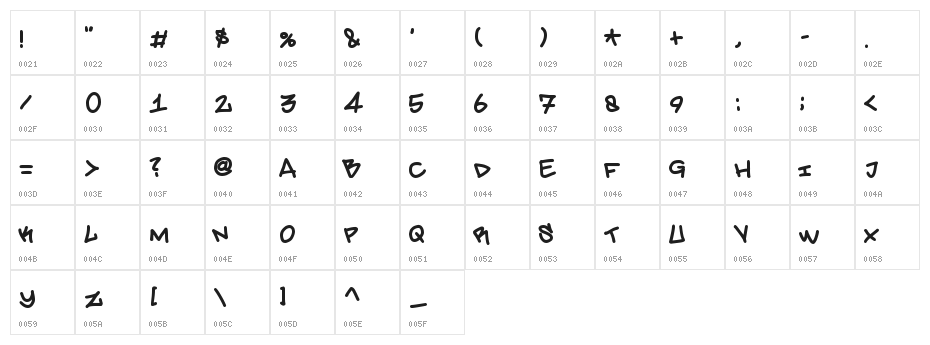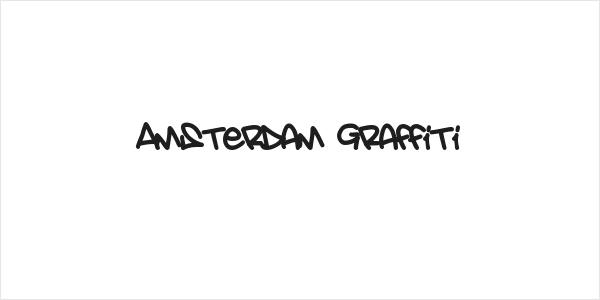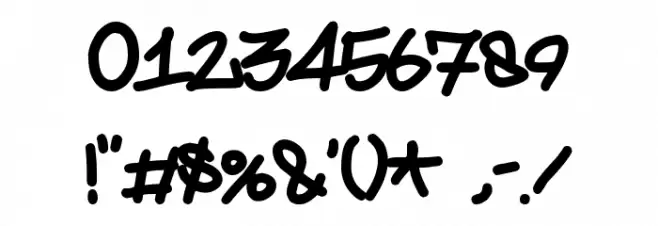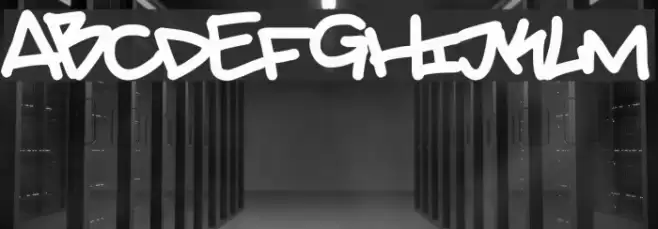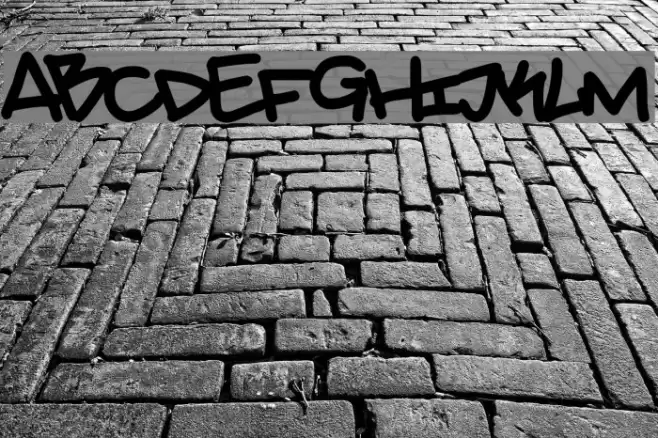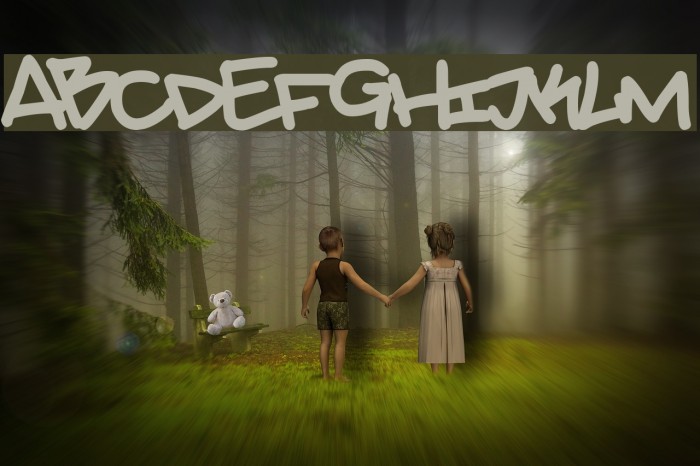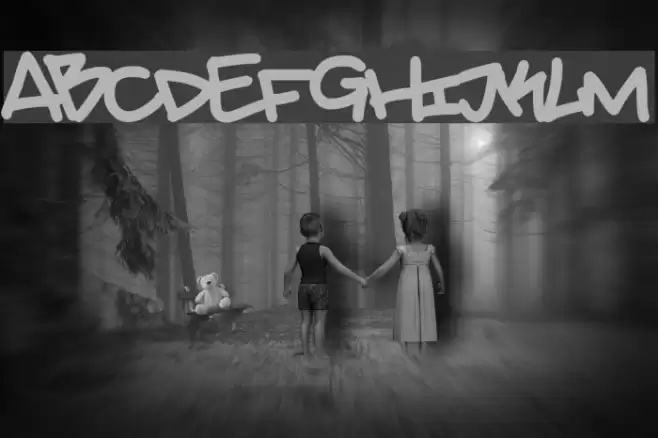
Amsterdam Graffiti Font
Amsterdam Graffiti Description
This font exudes a bold and energetic graffiti style, characterized by its thick, flowing strokes and dynamic, hand-drawn appearance. The letters are slightly slanted, giving a sense of movement and spontaneity, typical of street art. The uppercase and lowercase letters maintain a consistent style, with rounded edges and an informal, playful vibe. Numbers and special characters are equally expressive, adding to the overall urban aesthetic. The font's design is perfect for projects that require a youthful, rebellious touch, capturing the essence of graffiti culture.
| Overall Style | Urban, Graffiti |
| Use Case | Logos, Posters, Headlines |
| Proposed Projects | Ideal for street art-inspired designs, urban-themed posters, music album covers, and edgy branding projects. |